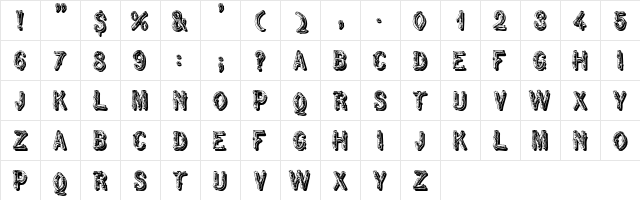
Complete RusticBlackShadow Regular glyph index. Displaying only characters natively supported by RusticBlackShadow Regular font.
RusticBlackShadow is built around its visual character rather than neutral utility - its distinctive forms are designed to make an impression at display sizes.